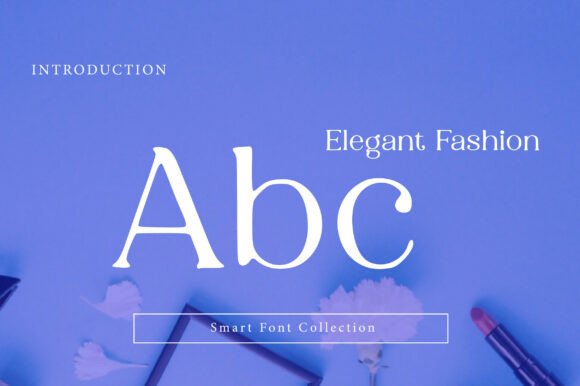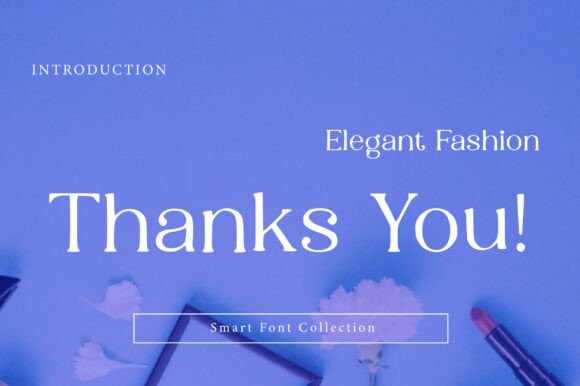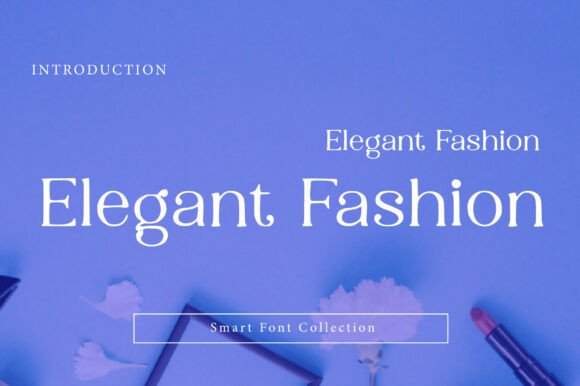
Elegant Fashion Font: Elevate Your Designs with Luxury and Sophistication
In the world of design, typography plays a crucial role in conveying the tone and personality of a brand. For designers and crafters seeking to create high-end, fashion-inspired designs, the Elegant Fashion font is an excellent choice. This modern serif font is specifically designed to deliver a premium editorial and fashion-inspired look, making it perfect for a wide range of applications.
Clean, Refined, and Luxurious Design
Elegant Fashion boasts a stylish serif structure, smooth curves, and balanced proportions, which work together to create a sophisticated and refined aesthetic. The font’s clean lines and classic character make it an ideal choice for designers who want to create typography that feels high-end, modern, and timeless.
Inspired by fashion magazines and luxury branding, Elegant Fashion is designed to evoke the elegance and exclusivity associated with high-end fashion. The font’s luxurious feel makes it perfect for logos, branding, magazine titles, beauty product packaging, wedding invitations, premium advertisements, and elegant social media designs.
Whether you’re a designer looking to create a luxury brand identity, a fashion label logo, or a magazine cover, Elegant Fashion is the perfect choice. The font’s elegant details and polished serif aesthetic make it ideal for headlines, titles, and logo designs where the typography needs to stand out clearly.
Crafters and designers can use Elegant Fashion to add a touch of sophistication to their designs. The font’s versatility makes it suitable for a wide range of applications, from premium packaging to wedding invitations and social media designs.
Key Features of Elegant Fashion Font
• Modern serif design: Elegant Fashion features a stylish serif structure that adds a touch of sophistication to any design.
• Smooth curves and balanced proportions: The font’s smooth curves and balanced proportions create a refined and elegant aesthetic.
• Luxurious feel: Elegant Fashion is designed to evoke the elegance and exclusivity associated with high-end fashion.
• Versatile: The font is suitable for a wide range of applications, from logos and branding to magazine titles and premium packaging.
How to Use Elegant Fashion Font
Elegant Fashion is best used in headlines, titles, and logo designs where the elegant details can stand out clearly. Here are some tips for using the font effectively:
• Use it for headlines and titles: Elegant Fashion is perfect for creating eye-catching headlines and titles that make a statement.
• Pair it with complementary fonts: Pair Elegant Fashion with complementary fonts to create a unique and visually appealing typography.
• Experiment with different sizes and colors: Experiment with different sizes and colors to find the perfect combination for your design.
In conclusion, Elegant Fashion is a luxurious modern serif font that is perfect for designers and crafters seeking to create high-end, fashion-inspired designs. With its stylish serif structure, smooth curves, and balanced proportions, this typeface is ideal for a wide range of applications, from logos and branding to magazine titles and premium packaging.
Whether you’re looking to create a luxury brand identity, a fashion label logo, or a magazine cover, Elegant Fashion is the perfect choice. Its elegant details and polished serif aesthetic make it a versatile font that can elevate any design instantly.